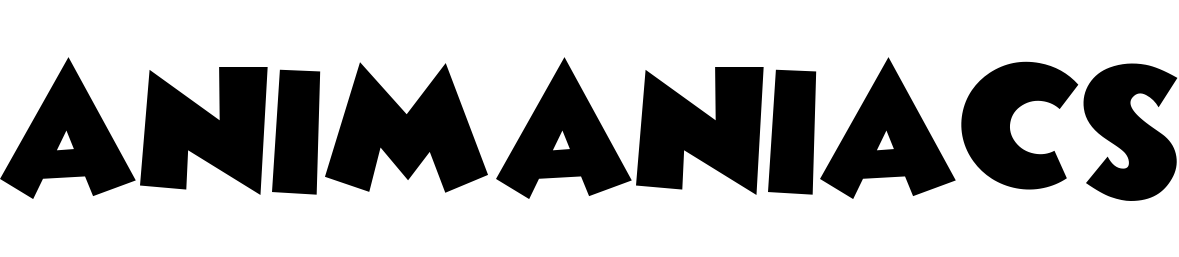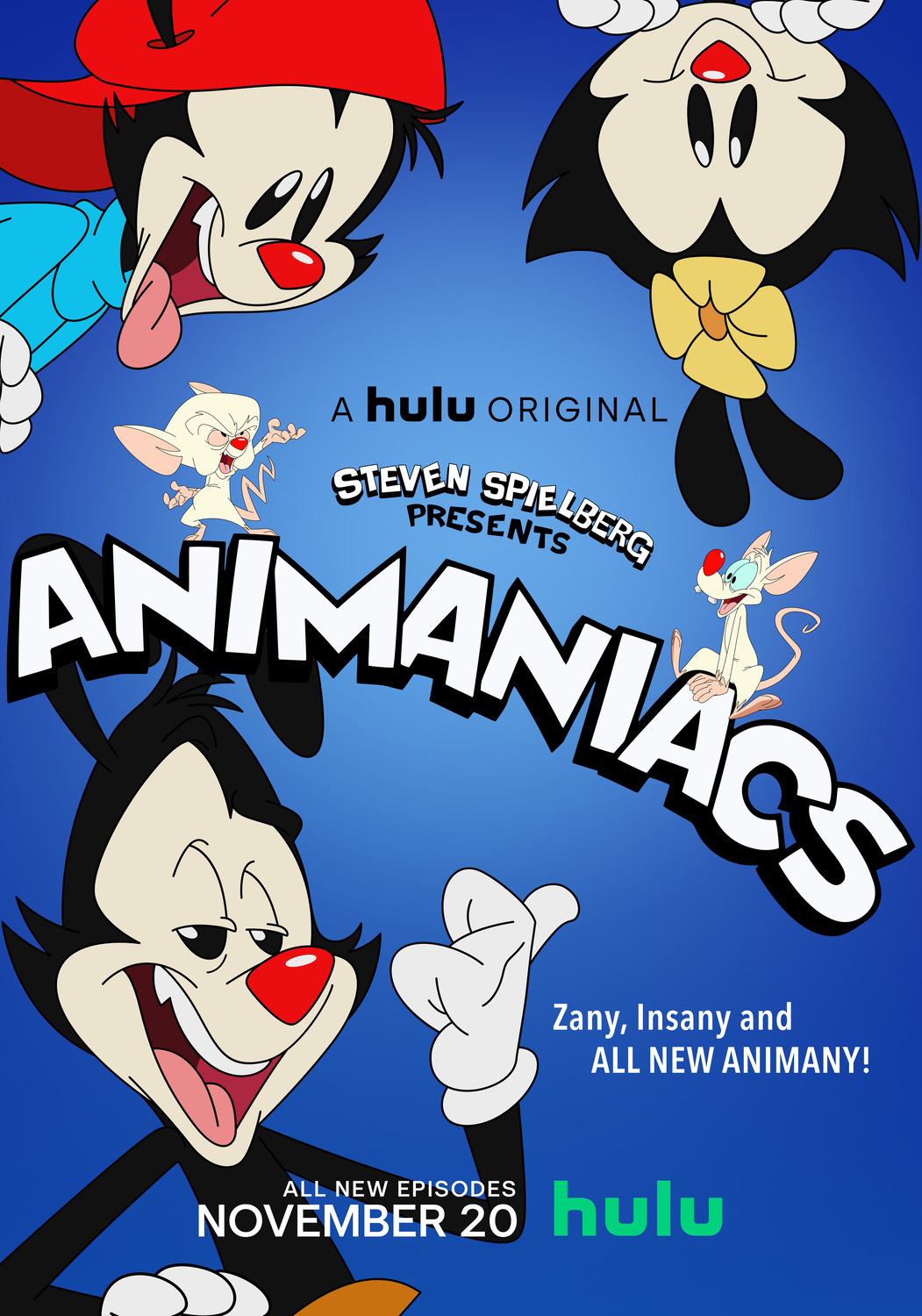
Animaniacs Font
AnimationAnimaniacs is an American animated TV series produced by Amblin Entertainment and Warner Bros. Animation. It was created by Tom Ruegger and executive produced by Steven Spielberg. The show received critical acclaim for its humor, animation, and music, and it has become a cult classic among fans of animation.
The "Animaniacs" series title is most likely not a font but instead created by hand lettering. However, if you need a similar font for your own use, Sharkshock's Wicked Mouse or Guy Buhry's Grobold are the closest options available in the Fonts Used Section.